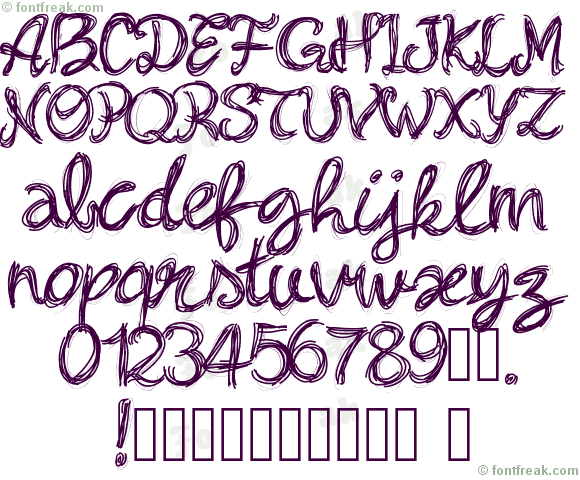
About PWBella
PWBella, designed by Peax Webdesign, is a captivating handwritten font that embodies a unique blend of elegance and creativity. With its free license type, this font is accessible for various creative projects. The PWBella font showcases a playful style characterized by its fluid strokes and charming irregularities, which give it a personal touch reminiscent of casual handwriting. The stroke weight varies, providing a delightful contrast that adds depth to the characters. The spacing is thoughtfully designed to maintain readability while enhancing the overall aesthetic appeal.
This font is particularly well-suited for a range of applications, making it a versatile choice for graphic designers and content creators. It excels in crafting wedding invitations, where its romantic flair can set the perfect tone for special occasions. Additionally, PWBella can enhance movie posters, lending a touch of whimsy to film promotions. Restaurant menus benefit from its inviting nature, making dishes seem more appealing to diners. Furthermore, this font works wonderfully for social media graphics, helping brands convey a friendly and approachable image.
Targeting graphic designers, small business owners, and content creators, PWBella provides an opportunity to create visually striking materials that resonate with audiences. Its unique handwritten quality stands out in a sea of standard fonts, making it ideal for those looking to infuse personality into their projects.
In conclusion, PWBella is more than just a font; it is a creative tool that invites expression and connection. The PWBella font free download opens the door to endless possibilities for anyone seeking to elevate their design work with a touch of charm and uniqueness.